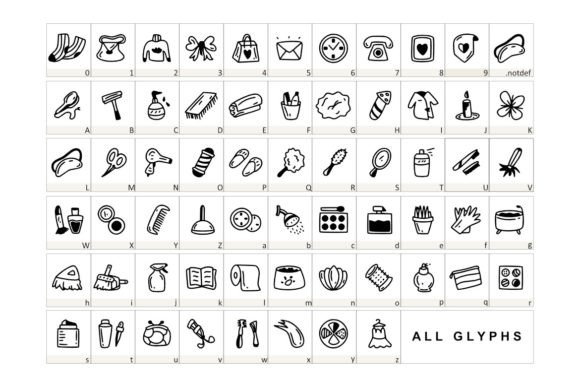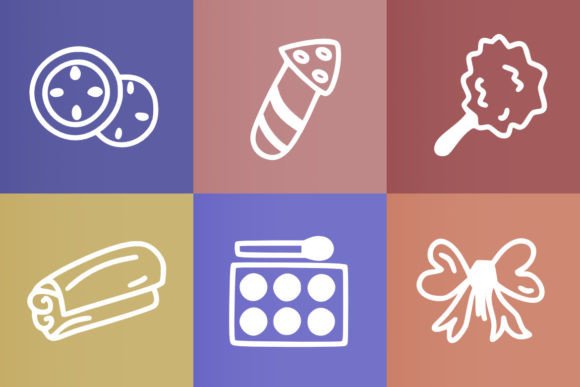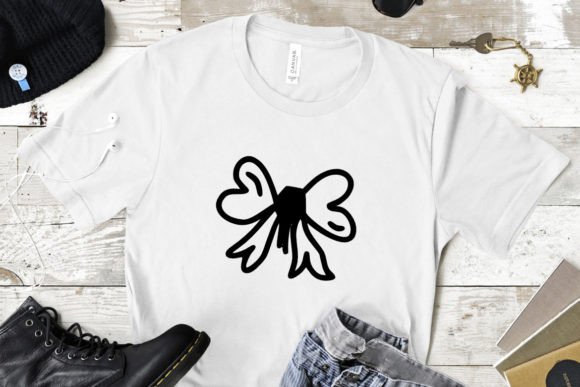
The Girly Font: A Fun and Versatile Dingbat for Your Creative Projects
I’ll never forget the time I was working on a project for a client who wanted a custom sticker design for their boutique’s grand opening. I had all the graphics and illustrations ready, but I was struggling to find the perfect font to match the playful and feminine vibe of their brand. That’s when I stumbled upon the Girly font, and it instantly became the missing piece to my design puzzle. In this article, I’ll share with you why I love the Girly font, its features, and how you can use it to elevate your creative projects.
- ✨ The Girly font is incredibly versatile and can be used for a wide range of projects, from stickers and posters to t-shirts and apparel graphics.
- ✅ It’s a dingbat font, which means it’s packed with fun and quirky glyphs that can add a touch of personality to your designs.
- 🎉 The font is easy to read and works well in both large and small sizes.
A Few Quirks to Keep in Mind
- ⚠️ The Girly font is a decorative font, so it’s best used as an accent or in combination with a more straightforward font.
- 🤔 Some of the glyphs can be a bit intricate, so they may not work well at very small sizes or in low-resolution images.
The Story Behind the Girly Font
The Girly font was designed by a team of creatives who wanted to create a fun and versatile dingbat font that could be used for a wide range of projects. The font was inspired by the nostalgia of childhood and the playfulness of feminine designs. The designers wanted to create a font that would make users feel happy and creative, and I think they succeeded!
Q: What type of projects can I use the Girly font for?
A: The Girly font is perfect for a wide range of projects, including stickers, posters, t-shirts, cards, and apparel graphics.
Q: Is the Girly font easy to read?
A: Yes, the Girly font is easy to read and works well in both large and small sizes.
Q: Can I combine the Girly font with other fonts?
A: Yes, the Girly font works well in combination with other fonts, but make sure to choose fonts that complement its playful and feminine vibe.